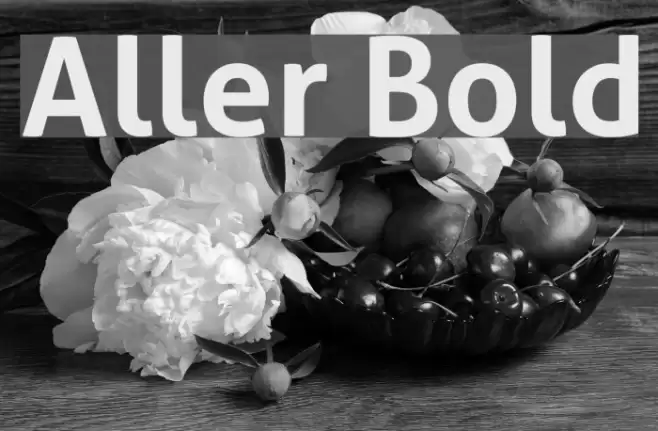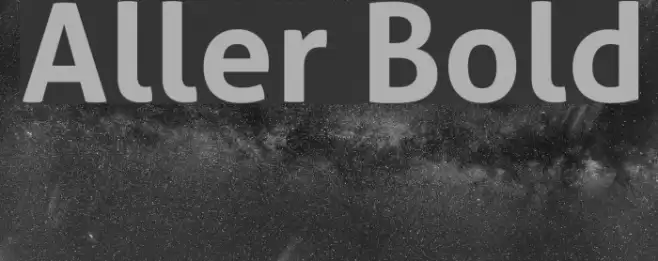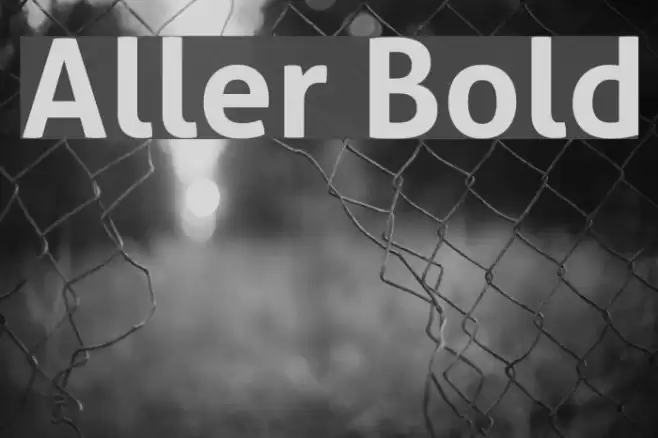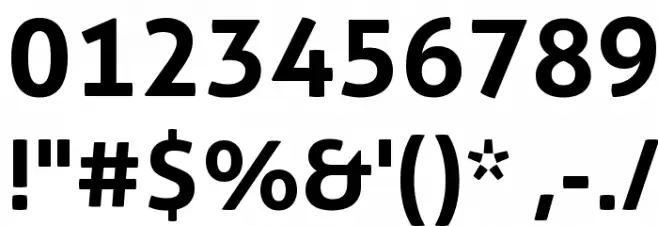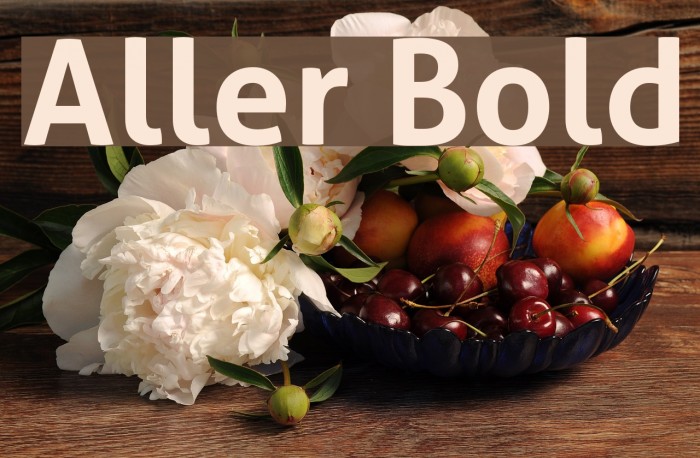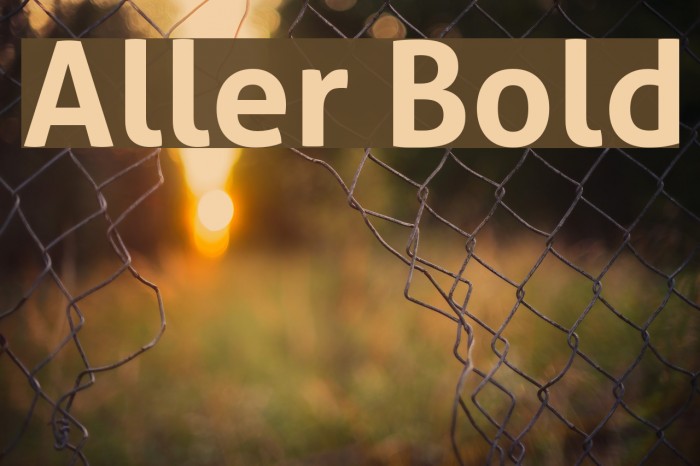
Aller Bold Font
Aller Bold Description
This font features a clean and modern sans-serif design with bold, uniform strokes that provide a strong presence. The characters are well-proportioned, offering excellent readability across both uppercase and lowercase letters. The numbers and special characters maintain the same boldness, ensuring consistency throughout. Its geometric shapes and smooth curves contribute to its contemporary aesthetic, making it suitable for a wide range of applications. The font's simplicity and clarity make it an ideal choice for projects that require a professional and polished look.
A bold, modern sans-serif font with clean lines and excellent readability from Uncategorized fonts.
- Proposed Projects: Ideal for branding, headlines, advertising, and digital media where a strong, modern presence is needed.
- Use Case: Headlines, Logos, Digital Media